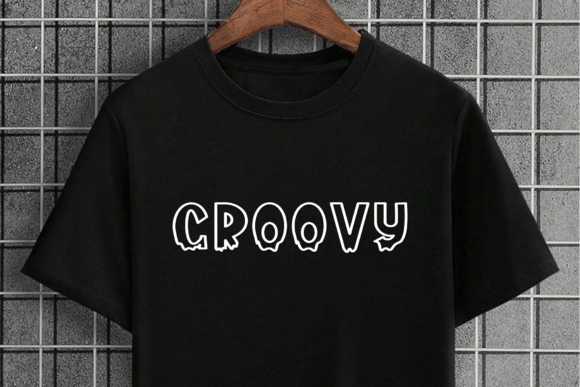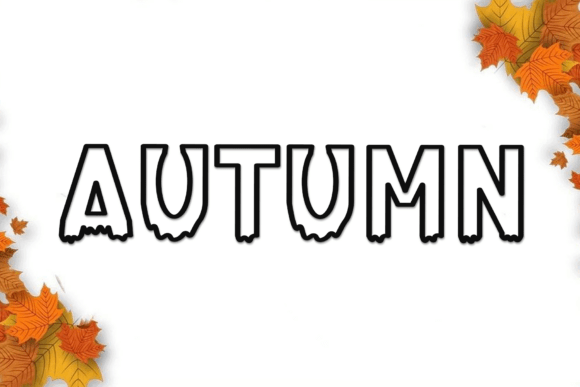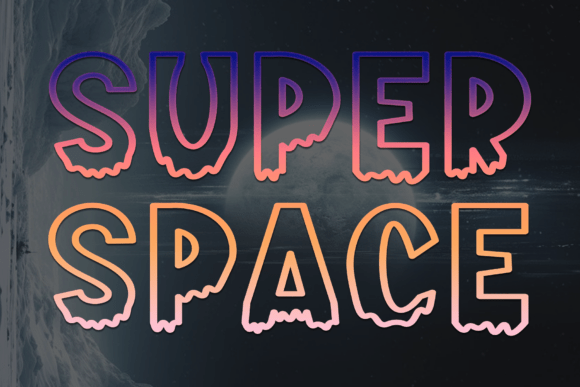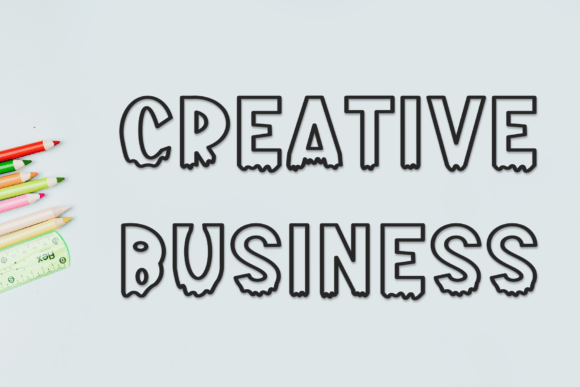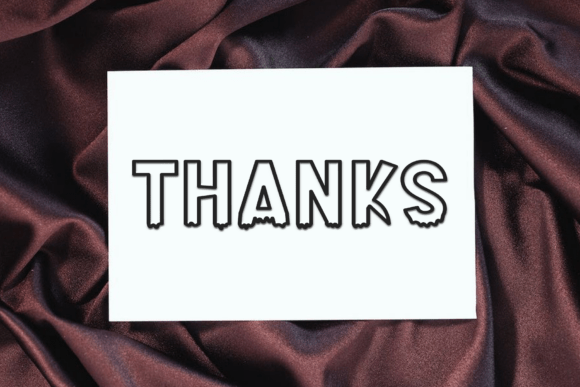
Unleashing the Fun and Fearless Black Snoopy Font
Have you ever been brainstorming a project and suddenly stumbled upon the perfect font that brings your creative vision to life? That’s exactly what happened when designers discovered the Black Snoopy Font – a playful and distinctive modern display typeface that instantly adds a touch of whimsy to any design.
With its bold display and chunky, block letterforms, the Black Snoopy Font is perfect for projects that need a spooky, playful, or casual vibe. Its unique, hand-drawn-like outline and wobbly, irregular bottom edge give the impression of letters partially submerged or gently thawing, making it an essential asset for designers looking for a fun, cartoonish, and memorable font.
The Black Snoopy Font is not only visually striking but also highly legible, making it suitable for logos, children’s book titles, Halloween graphics, and merchandise design. Its clear structure ensures that the quirky adornment doesn’t compromise readability, making it a valuable addition to any designer’s toolkit.
Black Snoopy Font Key Features
- Font Family: Black Snoopy, a unique and customizable font inspired by the popular Peanuts character Snoopy.
- Unique Characteristics: The Black Snoopy font features a distinctive, hand-drawn style with bold lines and expressive letterforms, perfect for adding a touch of whimsy to designs.
- Customization Options: The font includes multiple styles, including regular, bold, and italic, allowing designers to mix and match to create unique visual effects.
Designer Review: Black Snoopy Font
I recently had the chance to work with the Black Snoopy Font, and I must say it’s a unique addition to any design project. ✨ The font’s quirky, retro vibe immediately caught my attention, and I love how it adds a touch of whimsy to any text. ✨ The bold lines and crisp edges give it a fun, playful feel that’s perfect for creative projects or brands looking to stand out.
However, there are a few limitations to consider: ⚠️ The font may not be the best choice for large blocks of text, as the bold lines can make it difficult to read. ⚠️ Additionally, the font’s quirky nature may not be to everyone’s taste, so it’s essential to consider your target audience before using it. ⚠️ Finally, the font may not be compatible with all operating systems or devices, so be sure to test it thoroughly before use.
Overall, I think the Black Snoopy Font is a great addition to any designer’s toolkit. While it may have some limitations, its unique personality and charm make it a great choice for the right project. With a little creativity and consideration, this font can help take your designs to the next level.
- Unique, quirky personality
- Perfect for creative projects or brands looking to stand out
- Great for headlines or short blocks of text
The Black Snoopy Font is a bold, sans-serif font that is ideal for creating eye-catching headings and titles.
Use it to add a touch of sophistication to your designs, especially in the following use cases:
- Graphic designs
- Logo designs
Remember to use the font consistently throughout your design to create a cohesive look.
Alternatives to Black Snoopy Font
Great Vibes is a modern, elegant script font that is perfect for creating a sophisticated and luxurious look. It is ideal for use in wedding invitations, packaging, and branding materials. Compared to Black Snoopy Font, Great Vibes is more refined and has a more flowing connection between letters.
Alex Brush is a beautiful, handwritten font that is perfect for creating a personal and emotive look. It is ideal for use in editorial design, advertising, and social media. Compared to Black Snoopy Font, Alex Brush has a more organic and free-flowing feel, making it perfect for creating a sense of personality.
Pacifico is a beautiful, elegant script font that is perfect for creating a relaxed and beachy vibe. It is ideal for use in travel brochures, restaurant menus, and branding materials. Compared to Black Snoopy Font, Pacifico has a more laid-back and casual feel, making it perfect for creating a sense of relaxation.